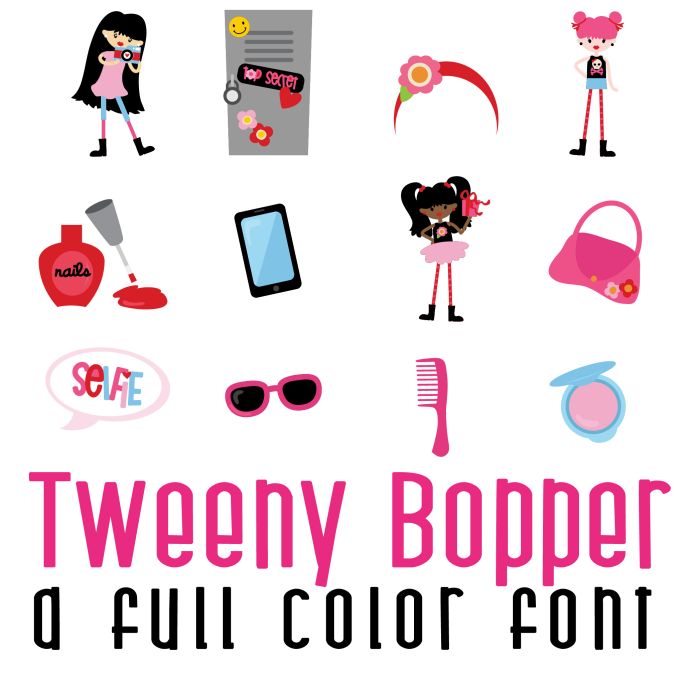
This full color font features 26 teeny boppers and teen themed imagery! Perfect for classrooms, teachers, gifts, decor, scrap book pages, planner stickers and more!